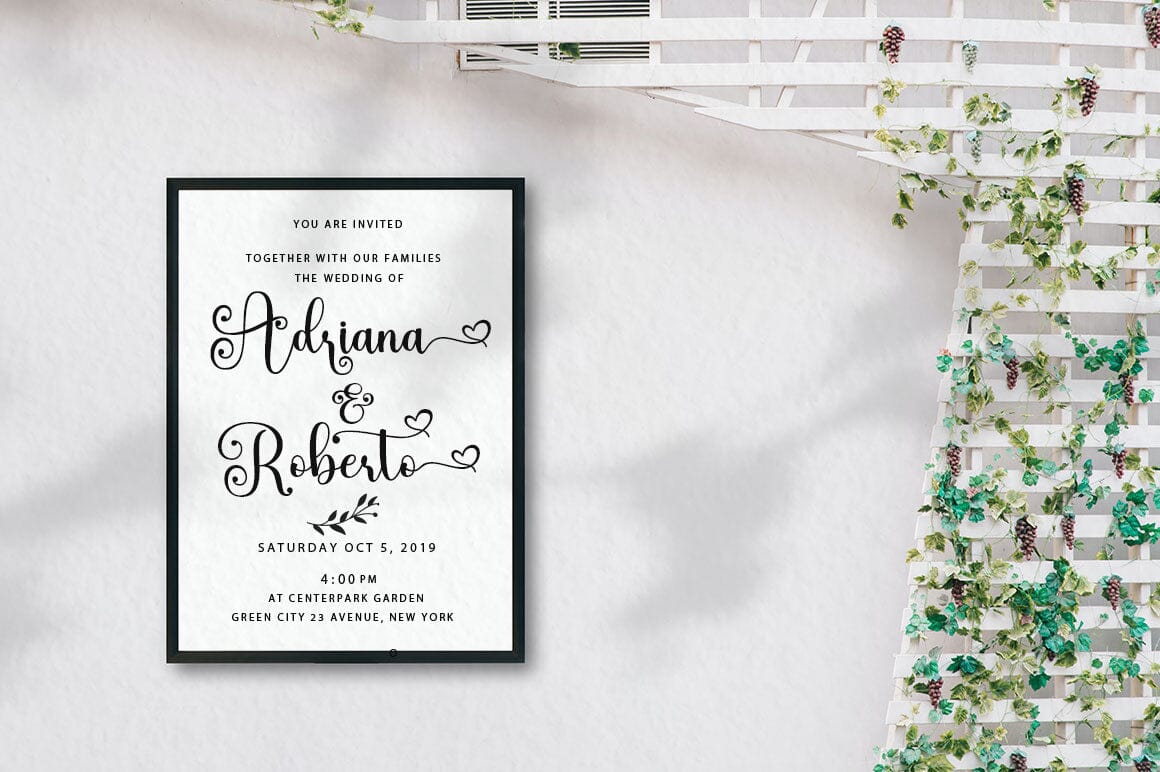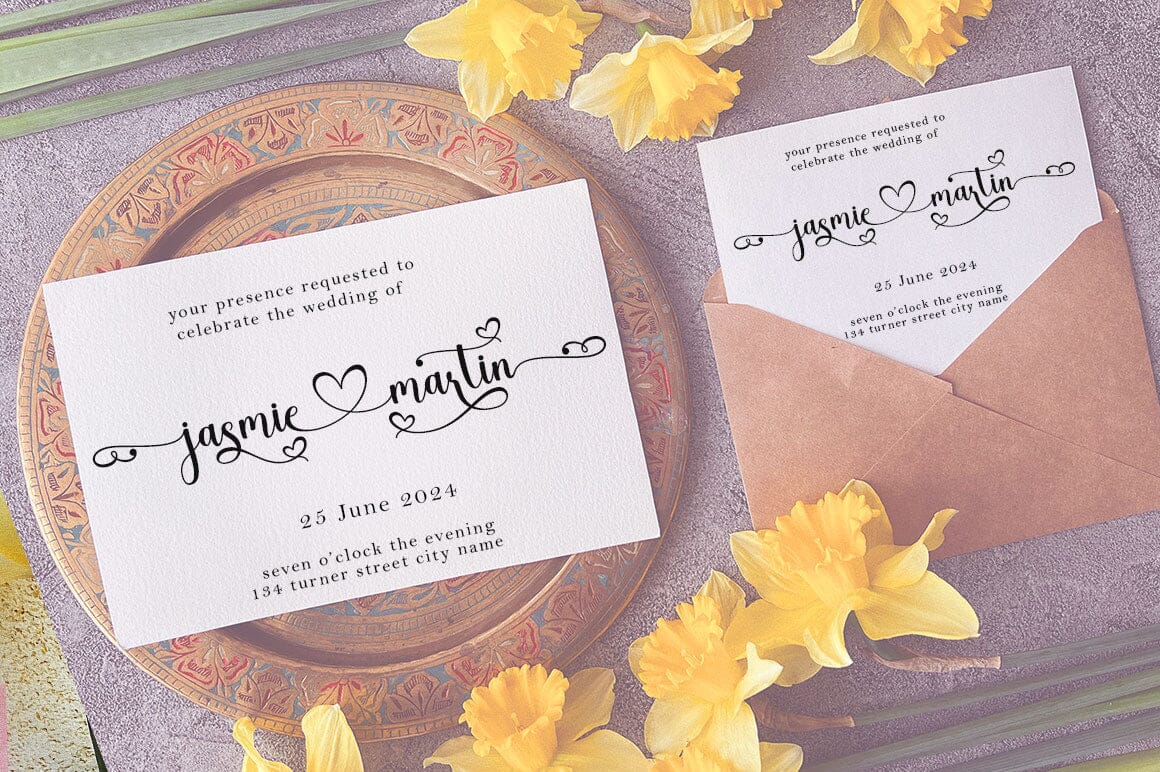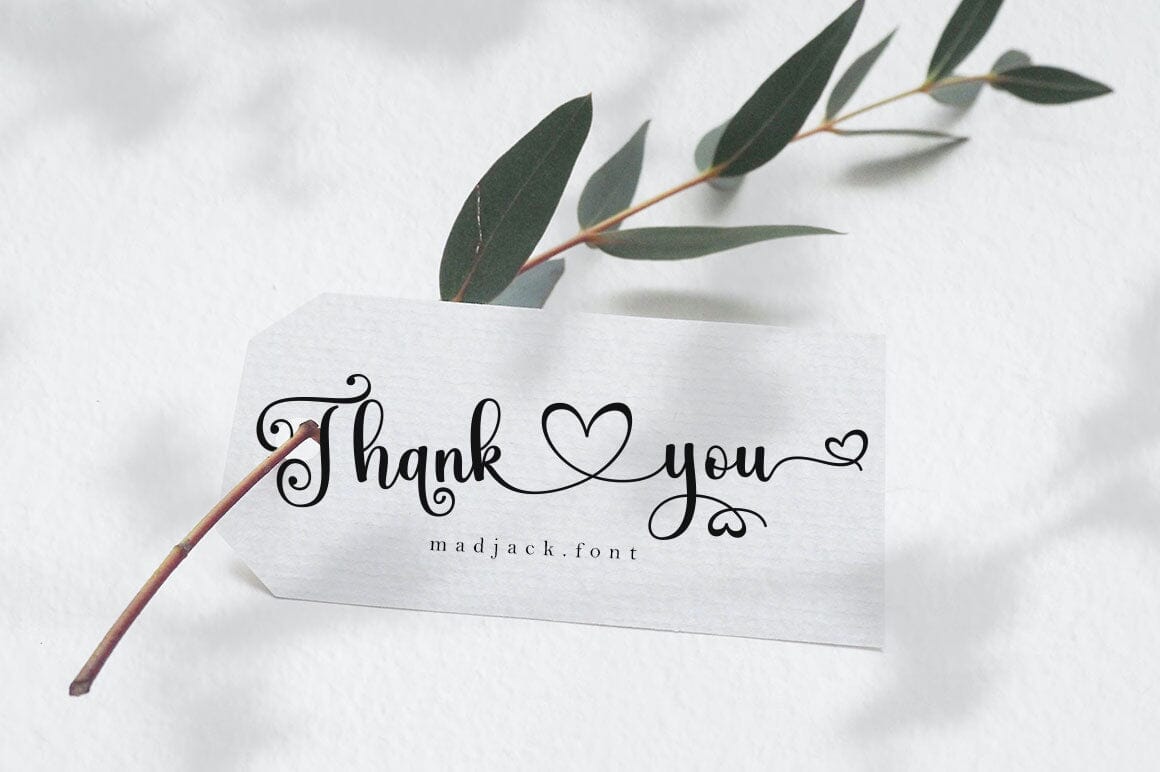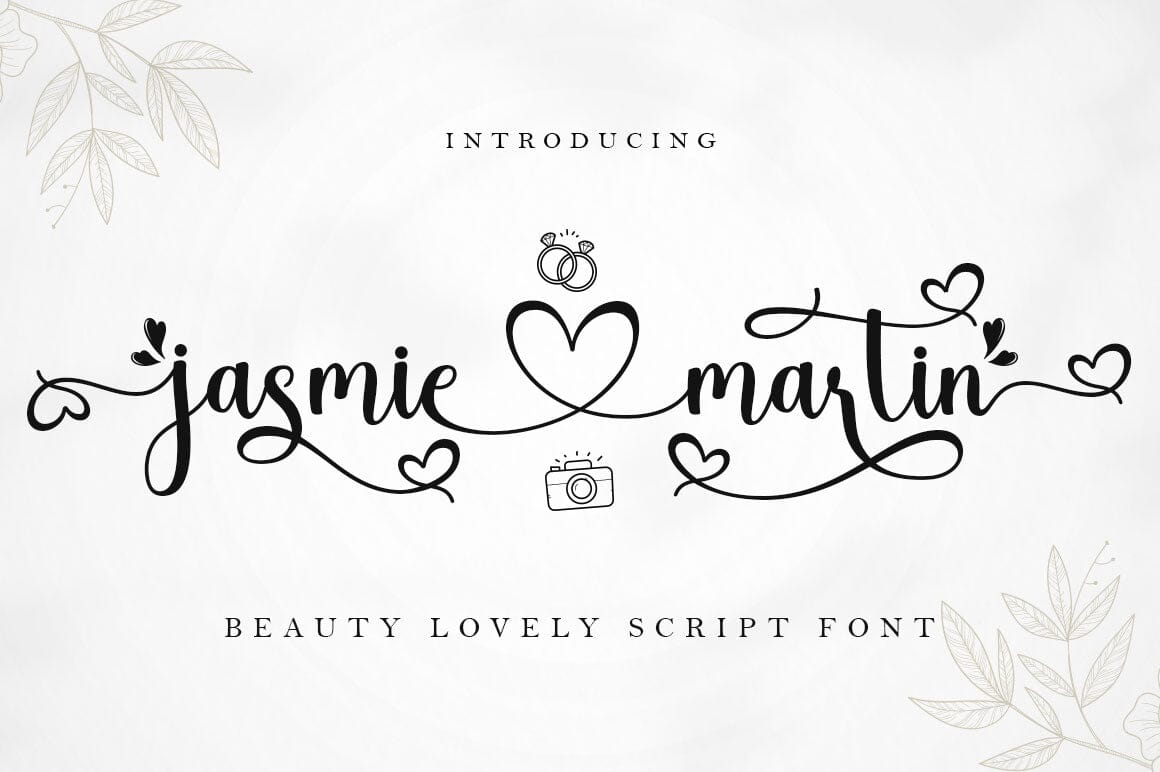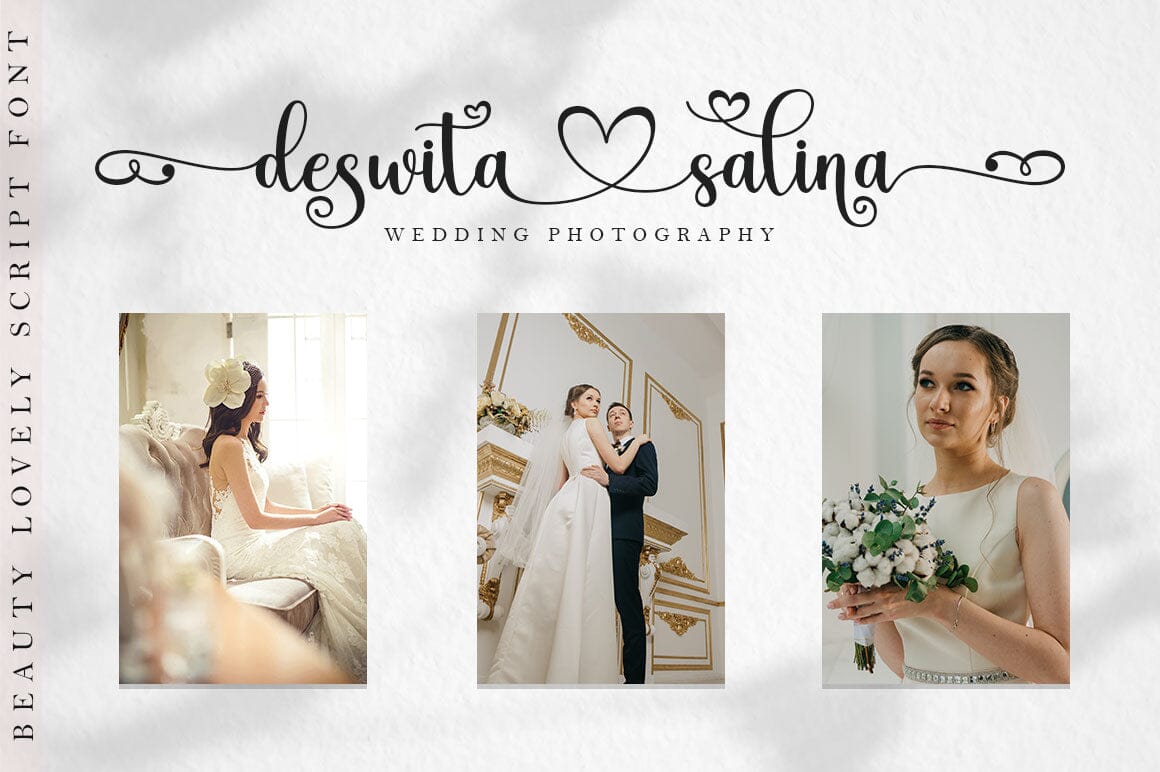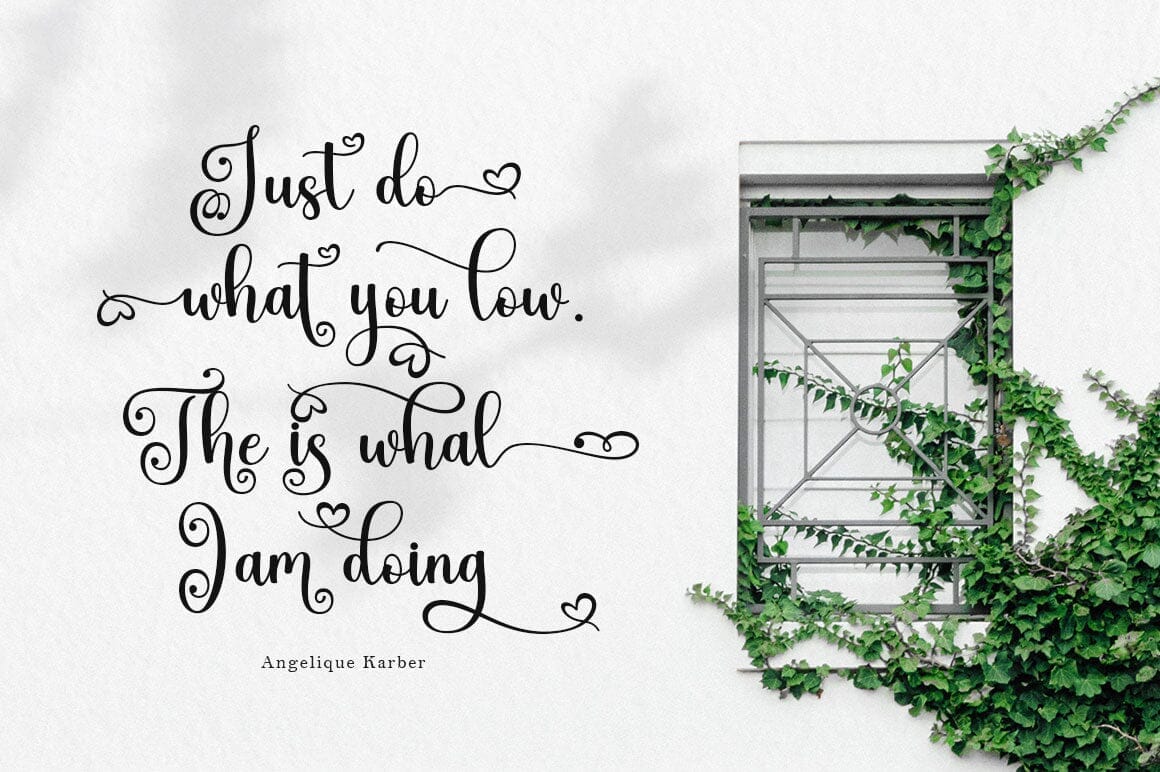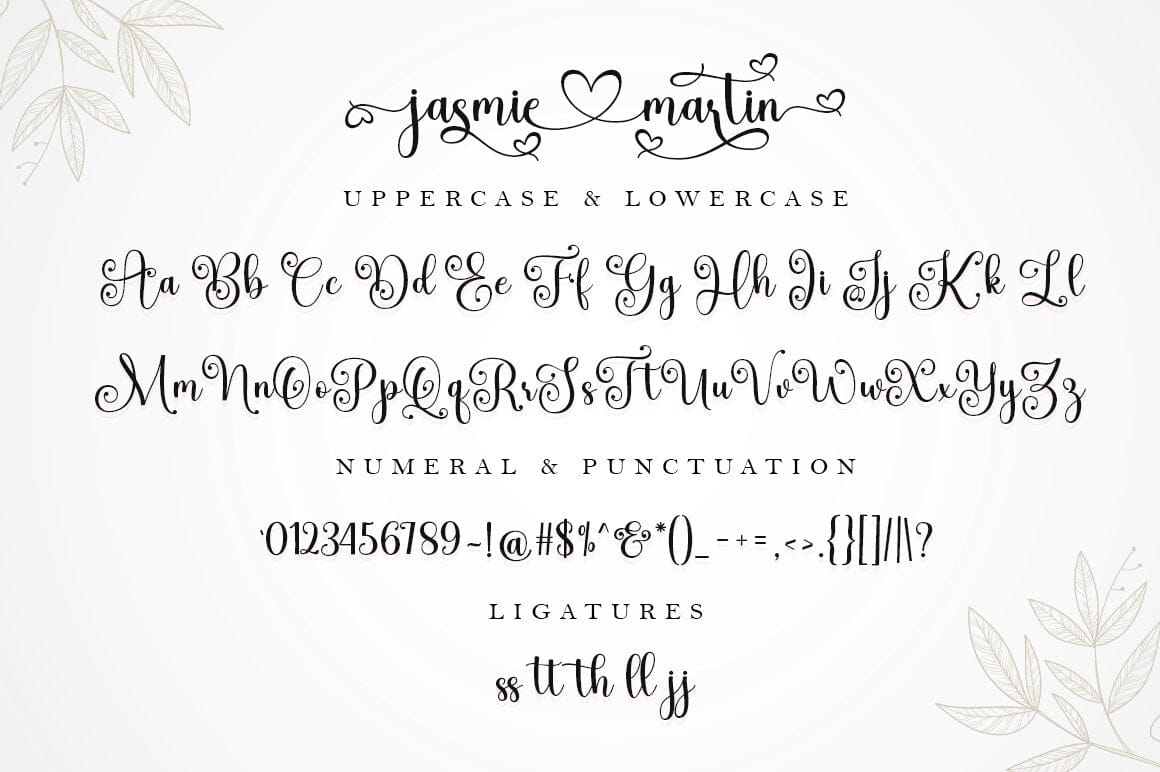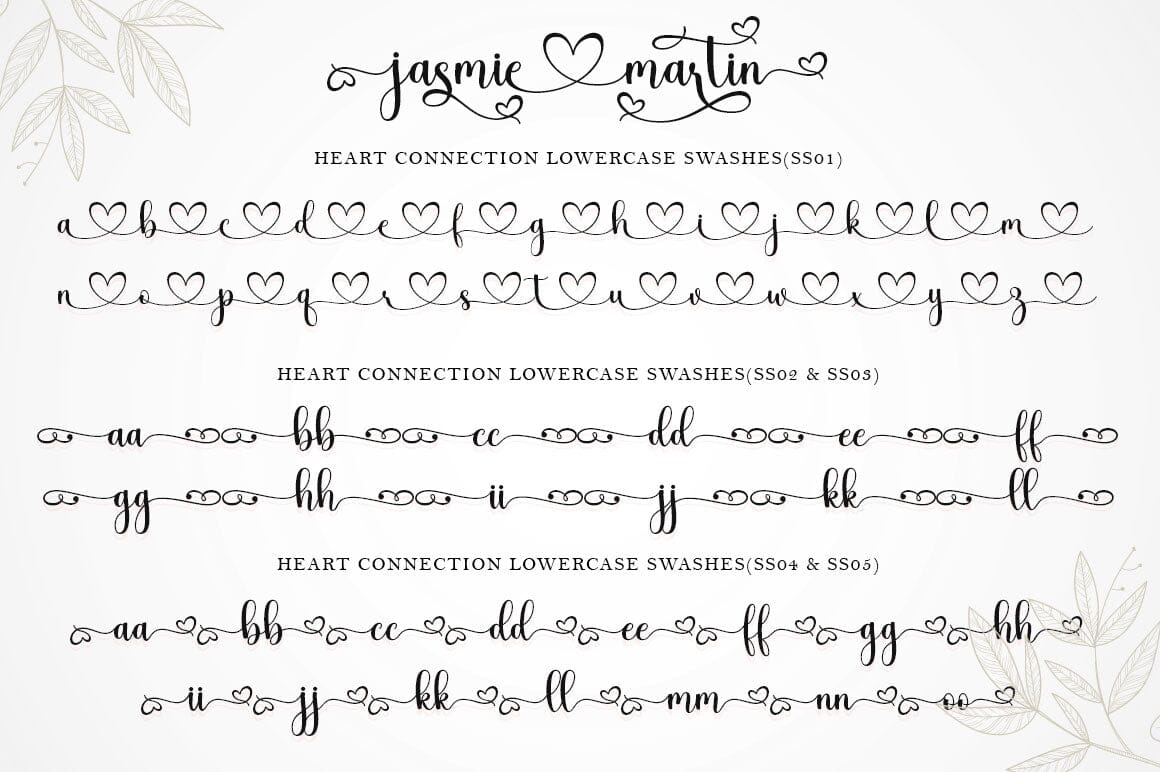
About Jasmie Martin Script
Jasmie Martin Script is an elegant and flowing handwritten font. This is a coded PUA which means you can access all the glyphs and swashes easily! It features varied baselines, smooth lines, beautiful glyphs, and stunning alternatives. It maintains a classy calligraphic influence while feeling contemporary and fresh. Fall in love with this font and take your projects to the highest level!